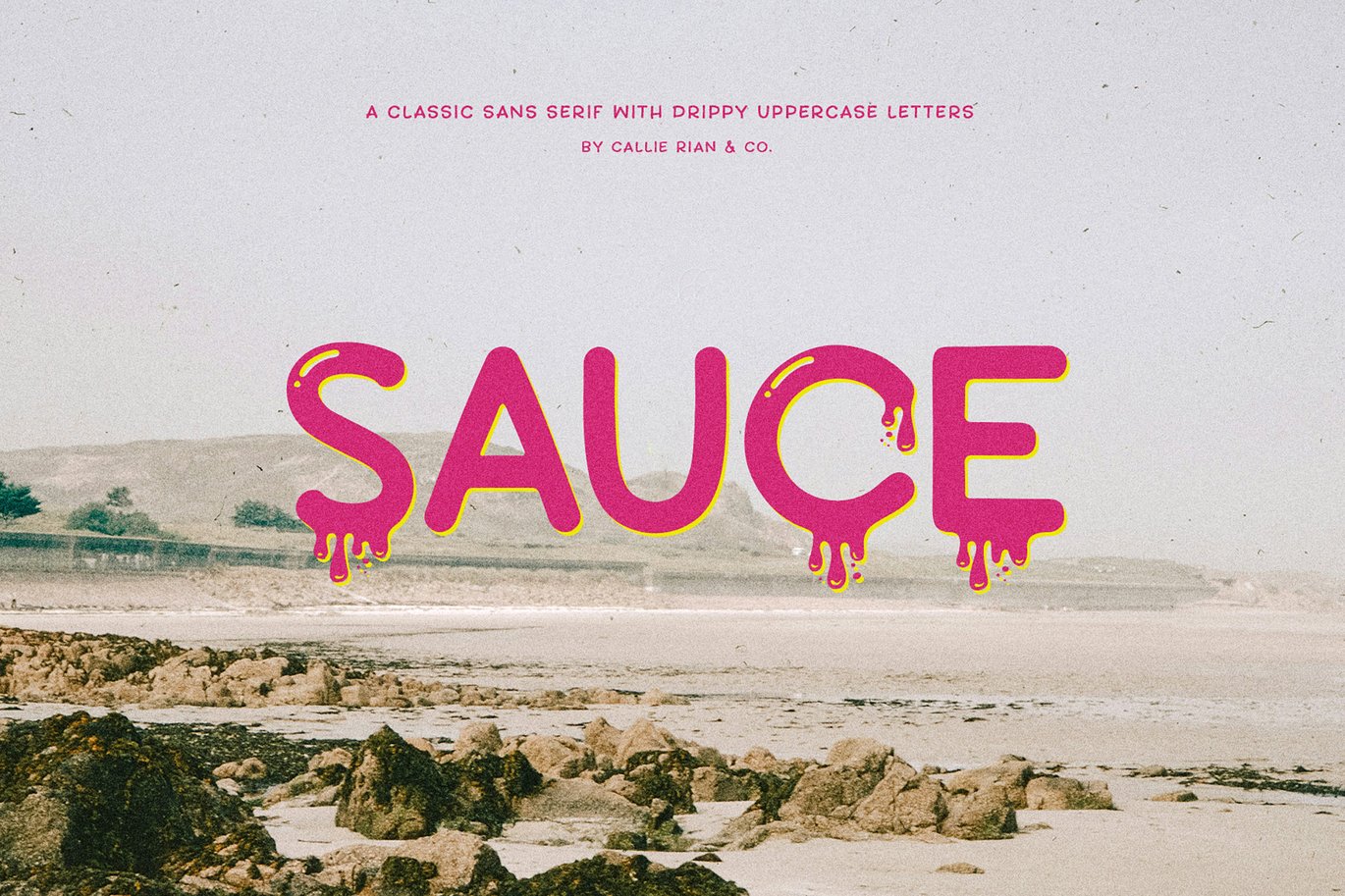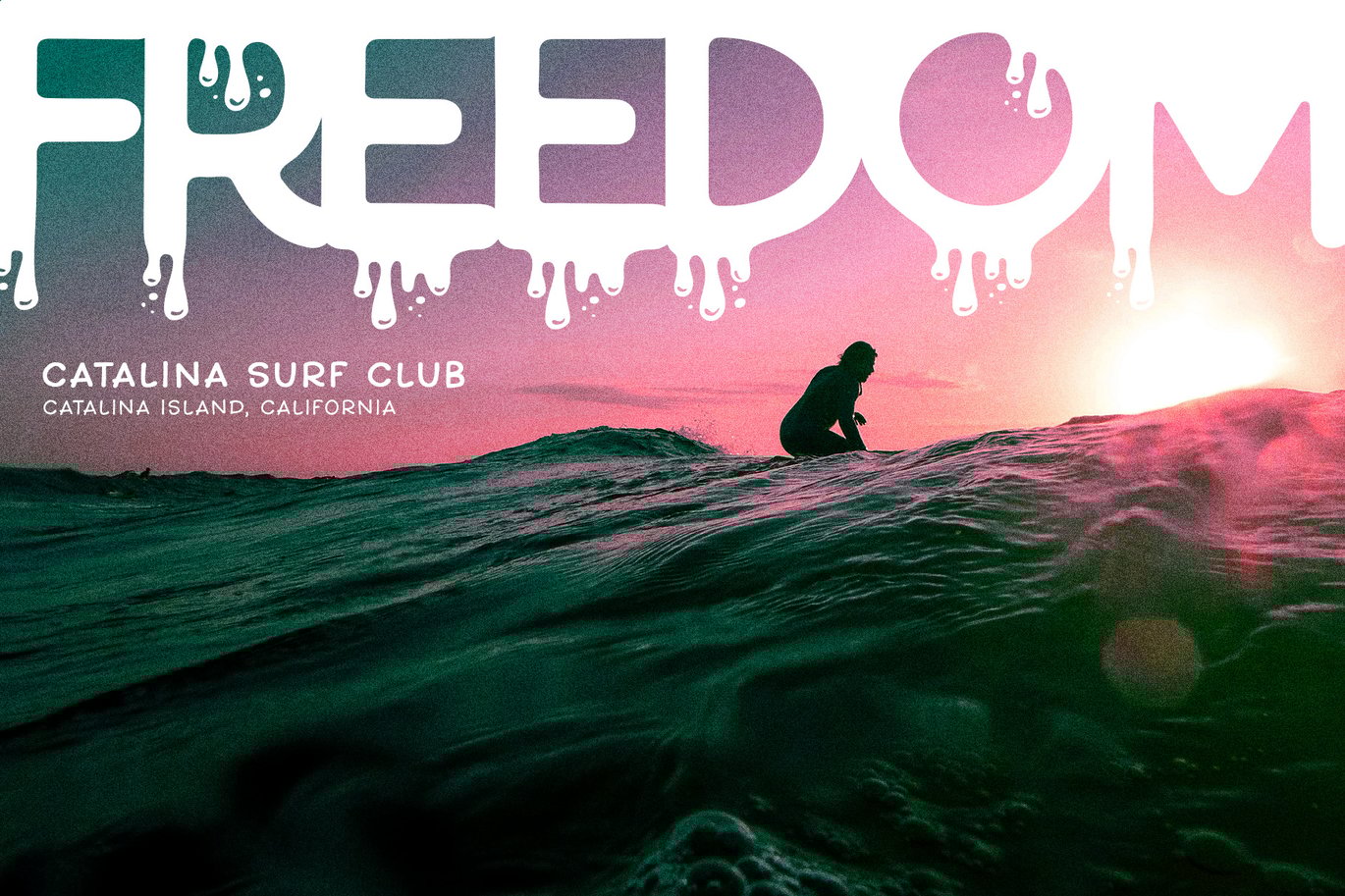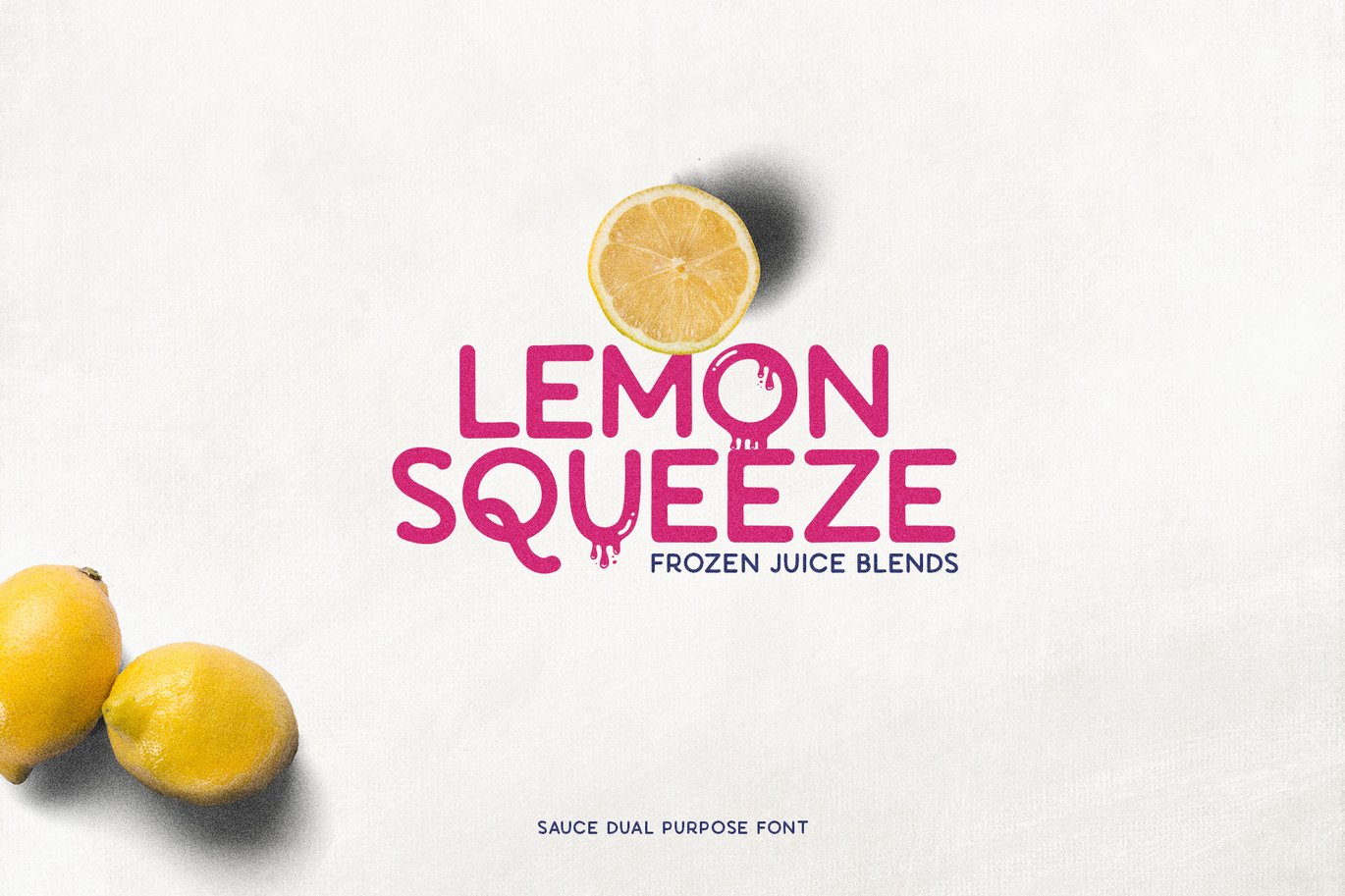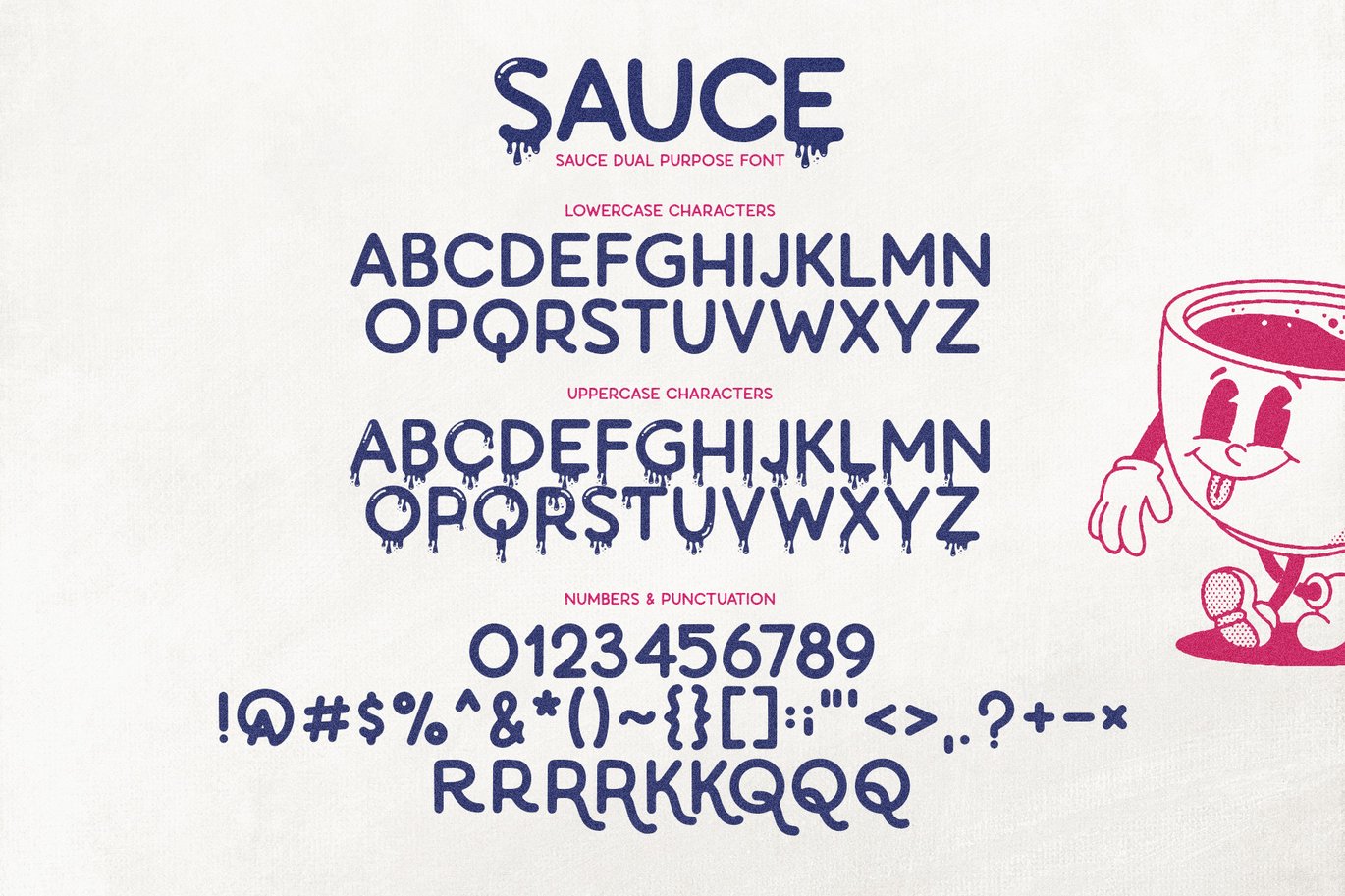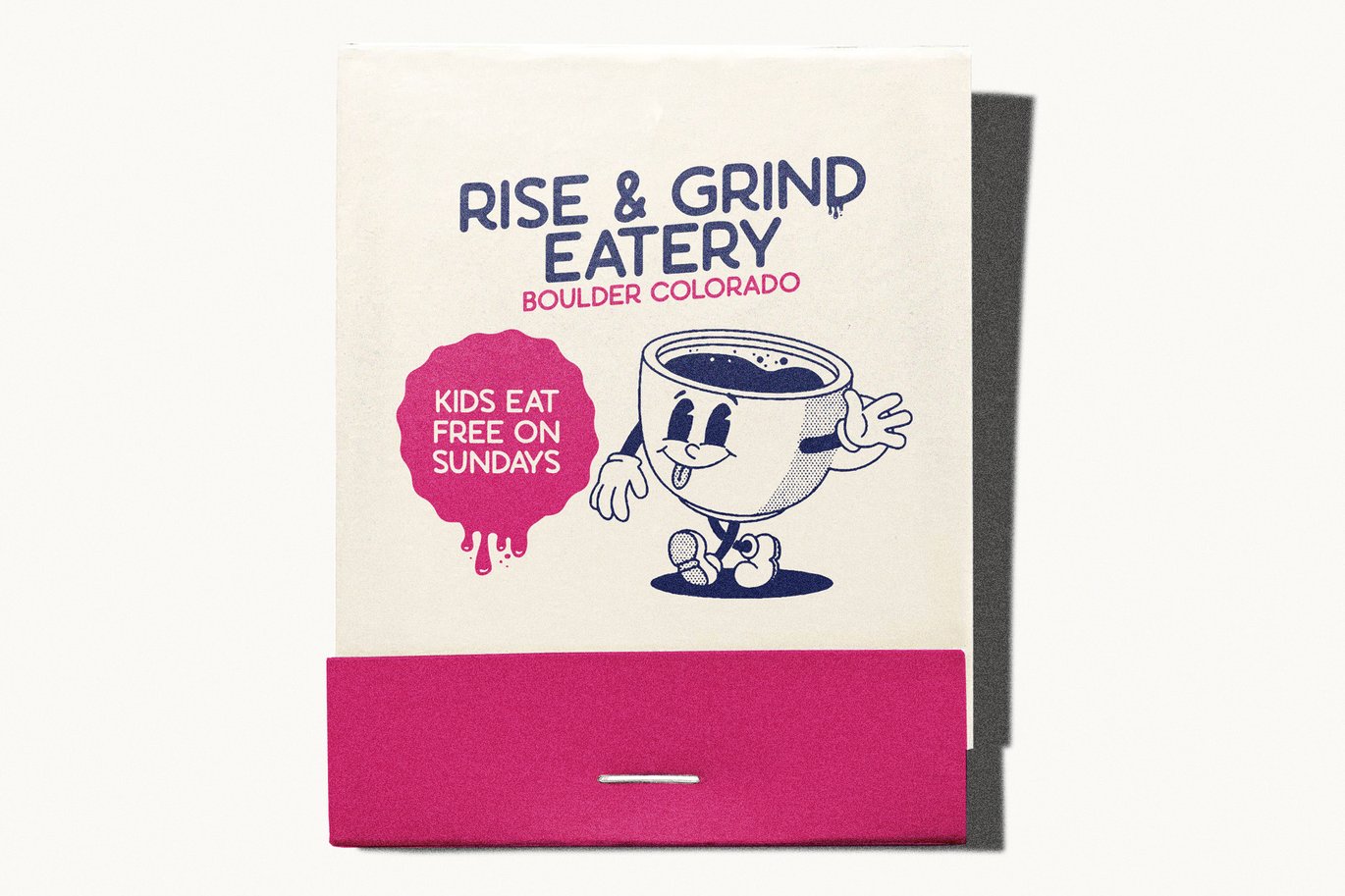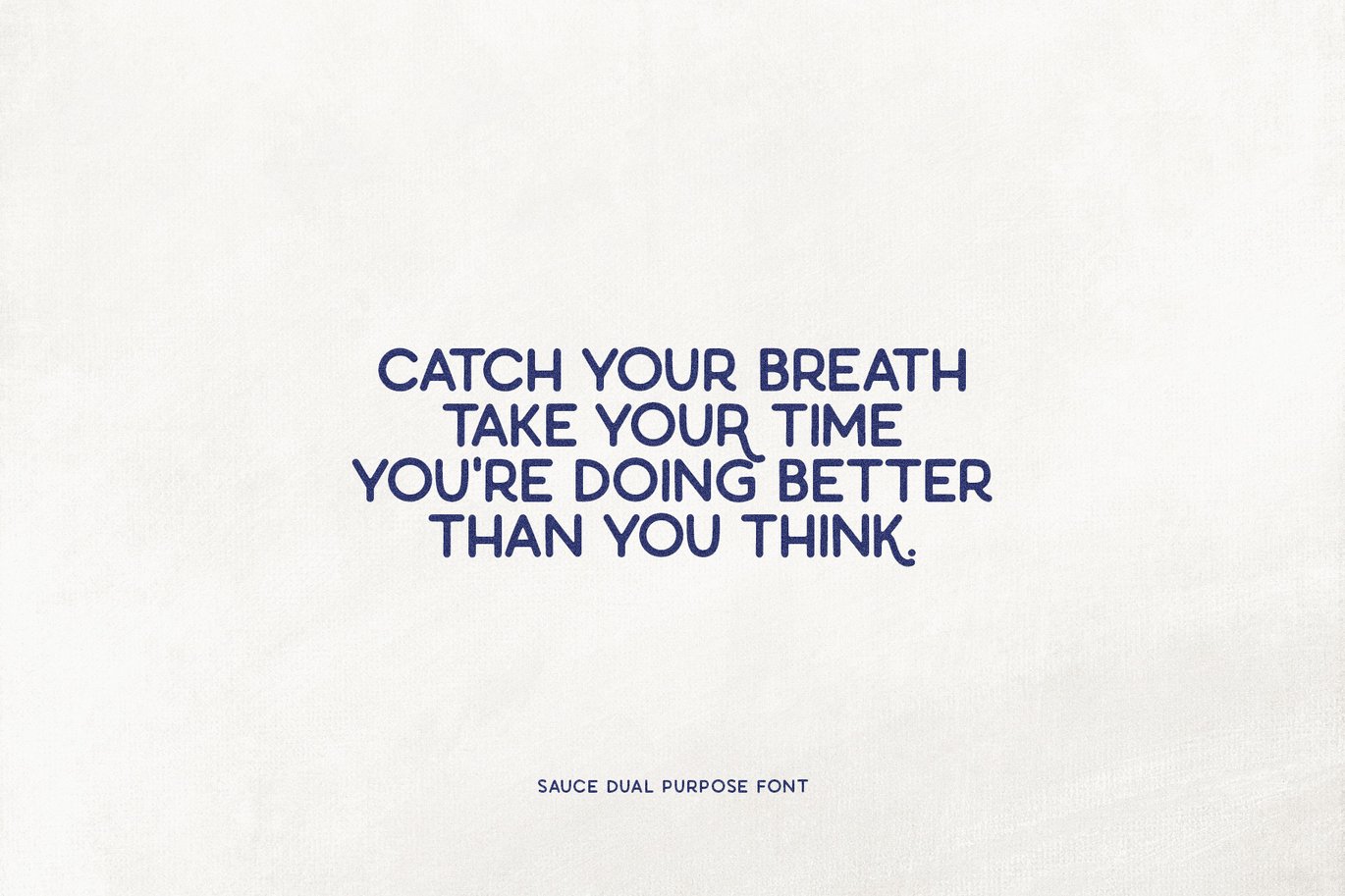
Sauce Typeface
Introducing SAUCE, a fun, dual purpose font! The lowercase letters are a classic sans serif, but the uppercase are delicious and drippy! Use them together for a subtle, saucy look, or go ALL OUT, and just let every letter drip! It’s so cute on typography projects, branding and quotes!